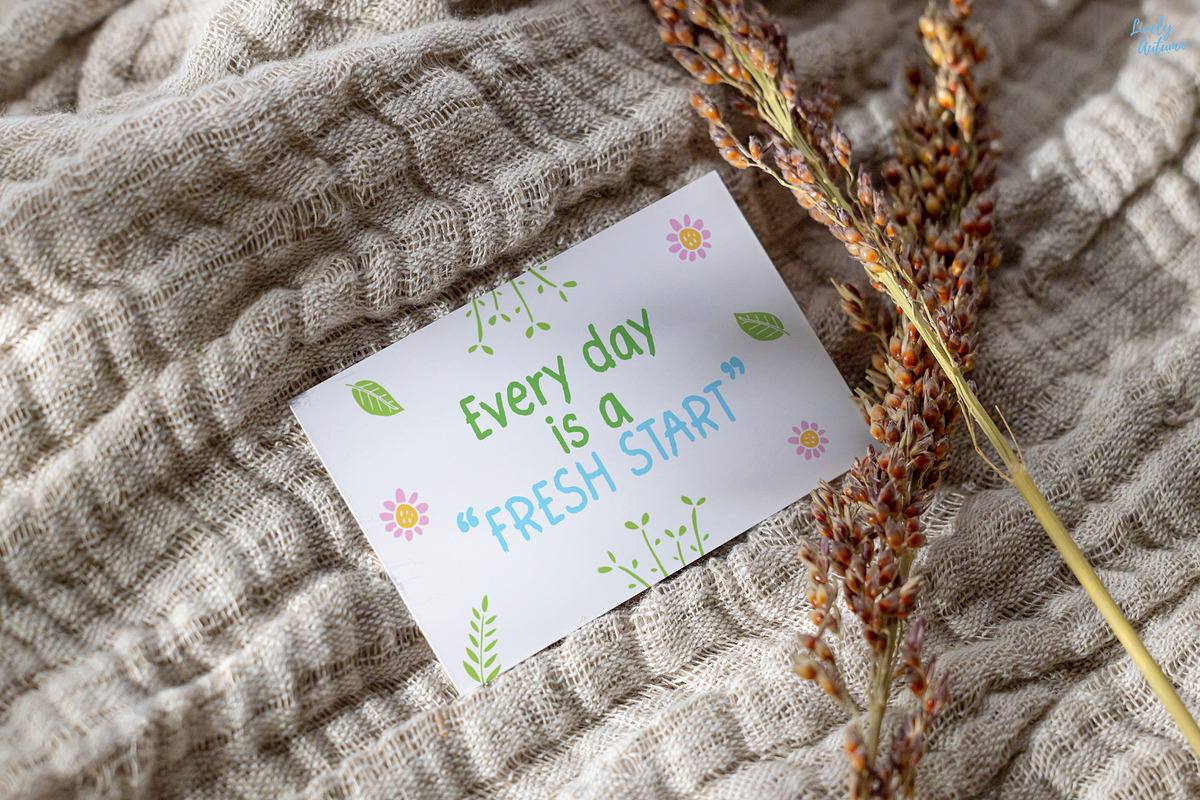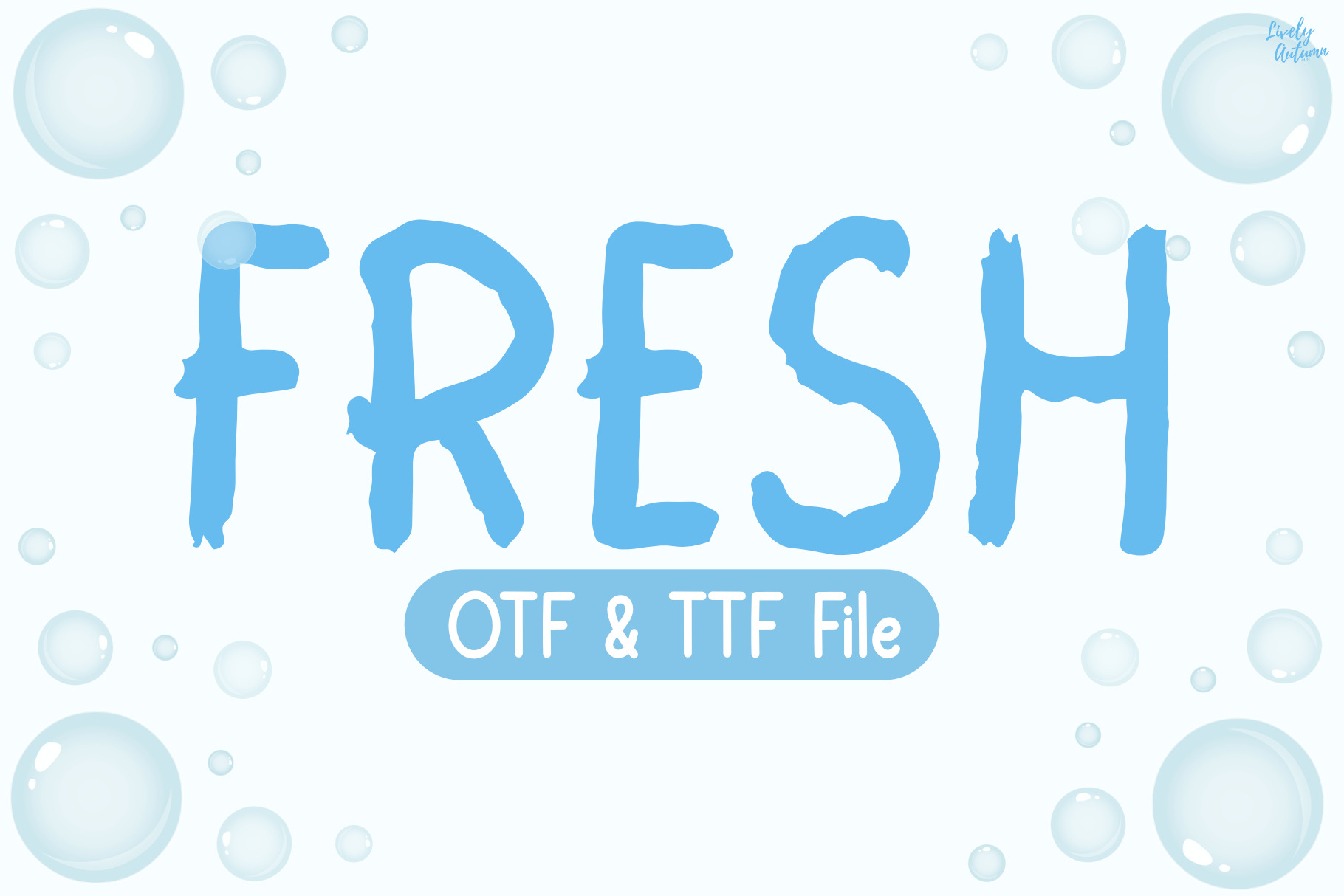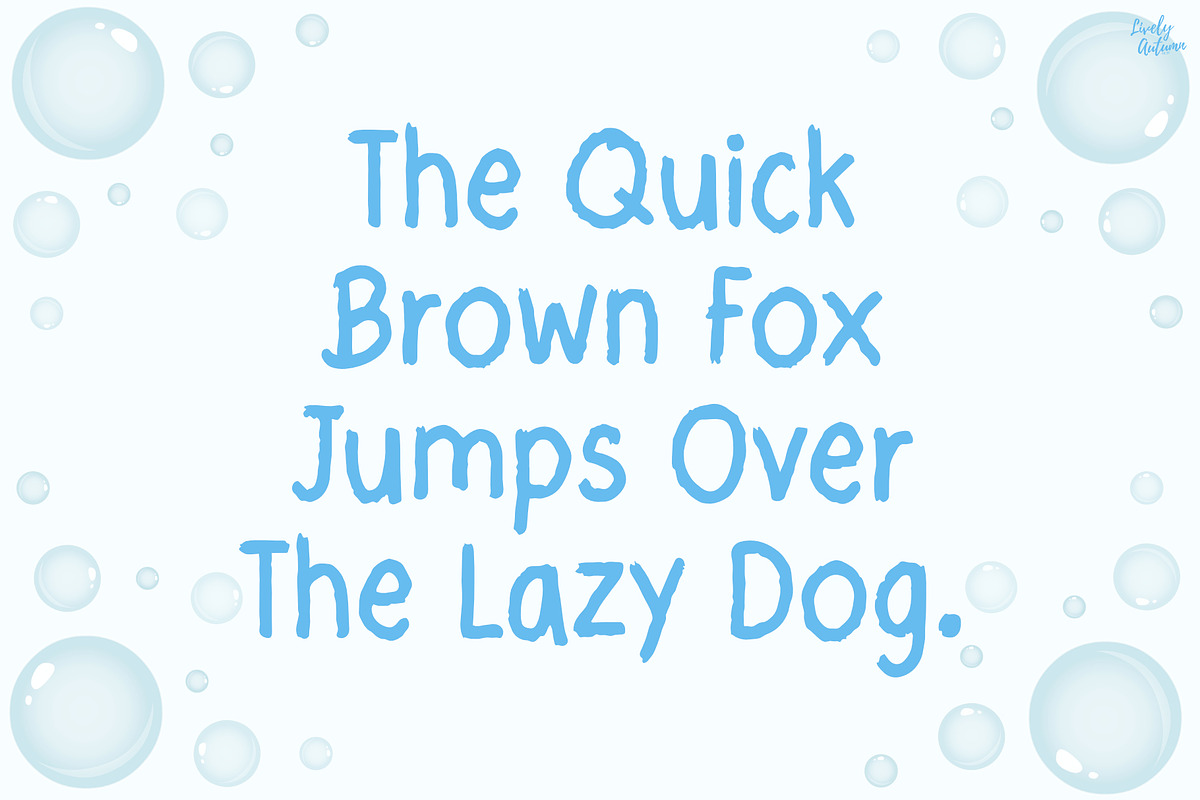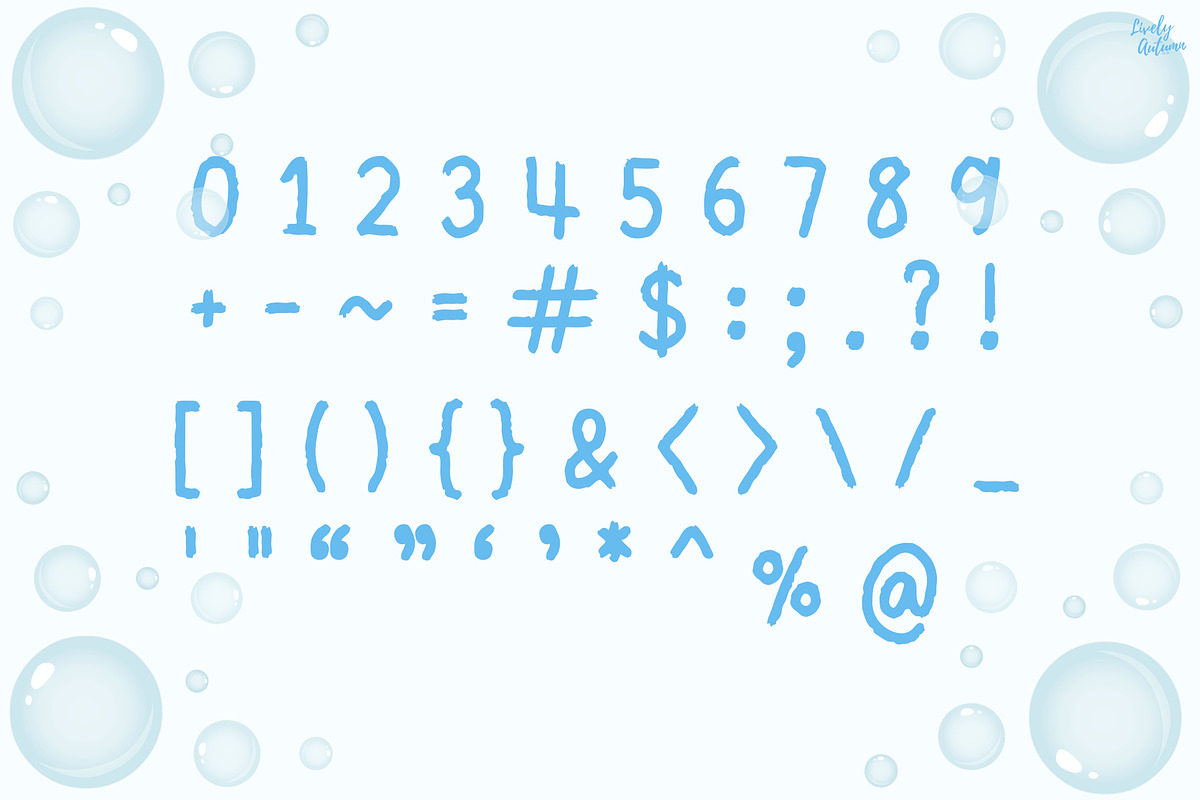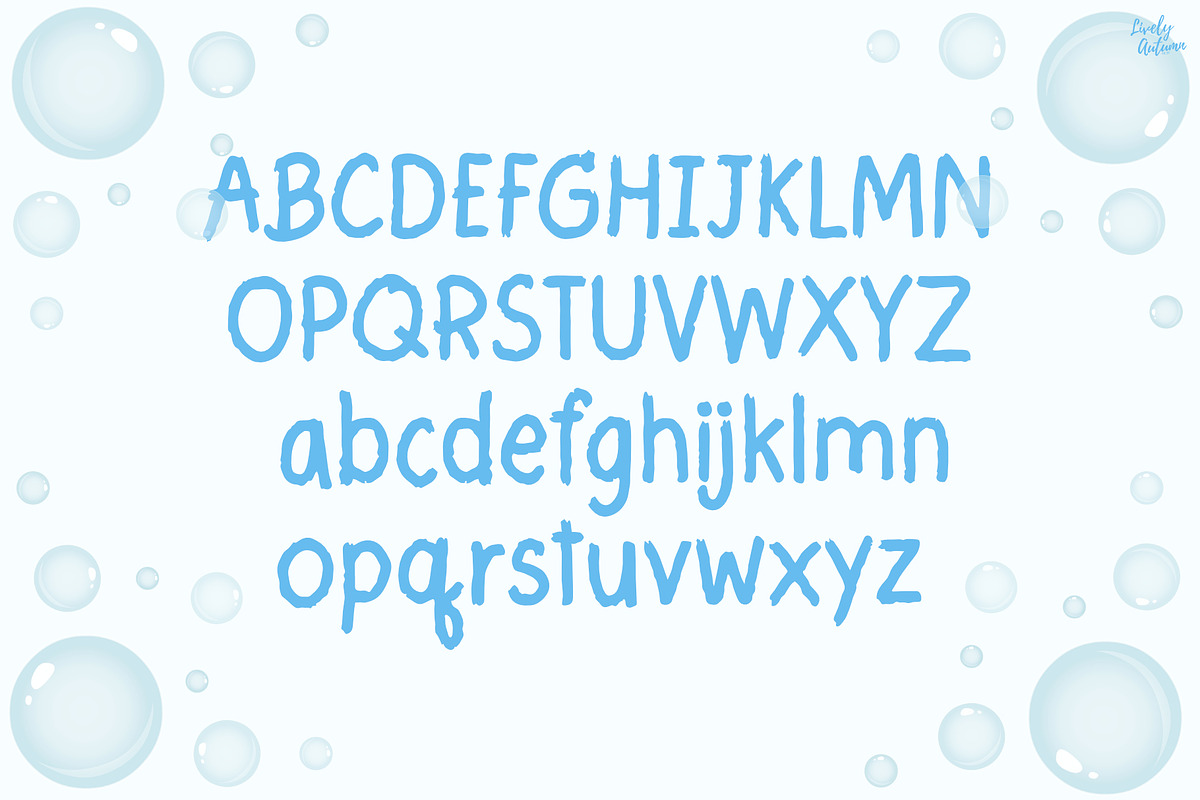
Fresh | Handwritten font
Fresh Font is a sans serif handwritten font. Perfect for your personal projects and various projects. From invitations to posters, social media graphics, journals, and much more.
- Font includes: uppercase, lowercase, numbers, and punctuation